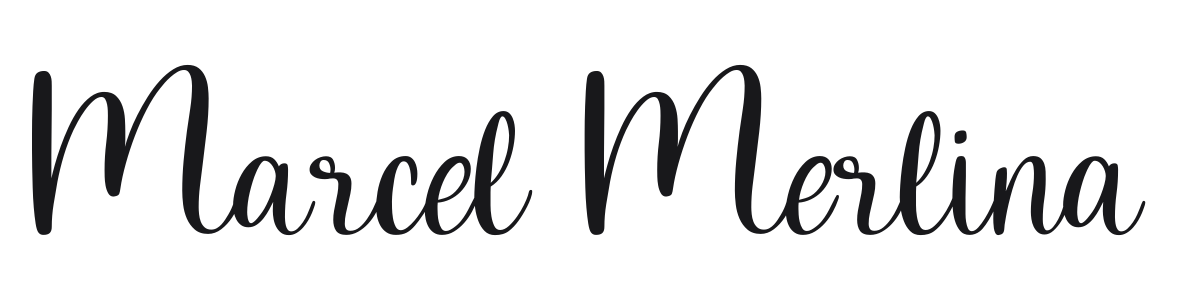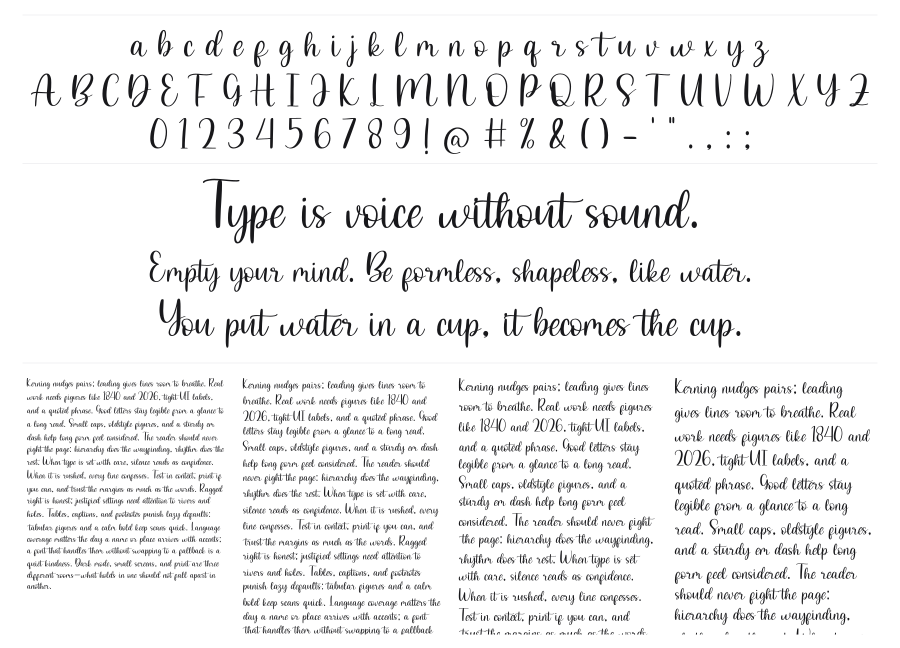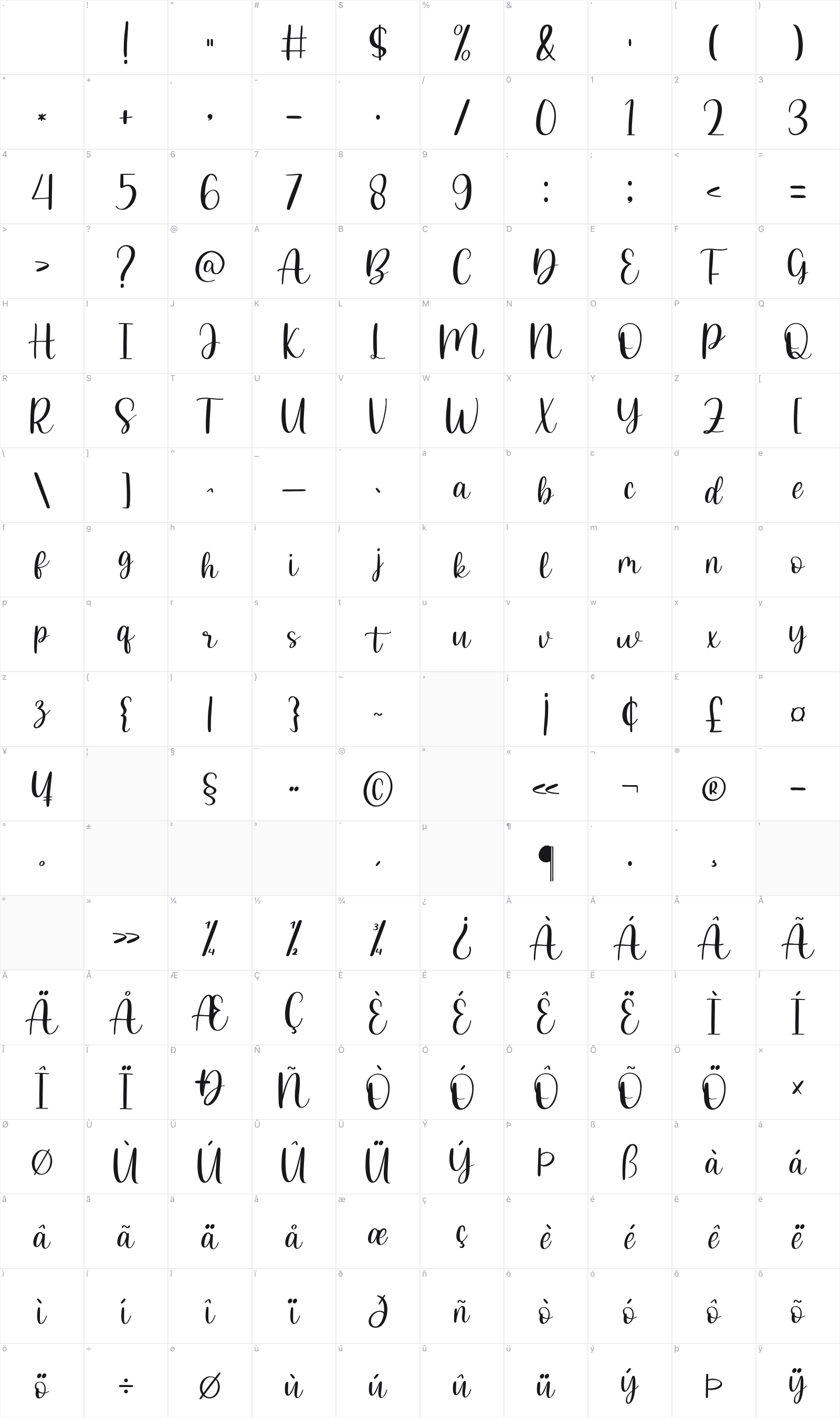
Marcel Merlina
Marcel Merlina is a lively casual script with a bouncing baseline and looped ascenders that give it an upbeat, handwritten feel. The moderate stroke contrast between thick stems and thin hairlines keeps it legible while adding elegance. It sits comfortably in wedding stationery, lifestyle branding, packaging, and anywhere warmth and personality are needed.